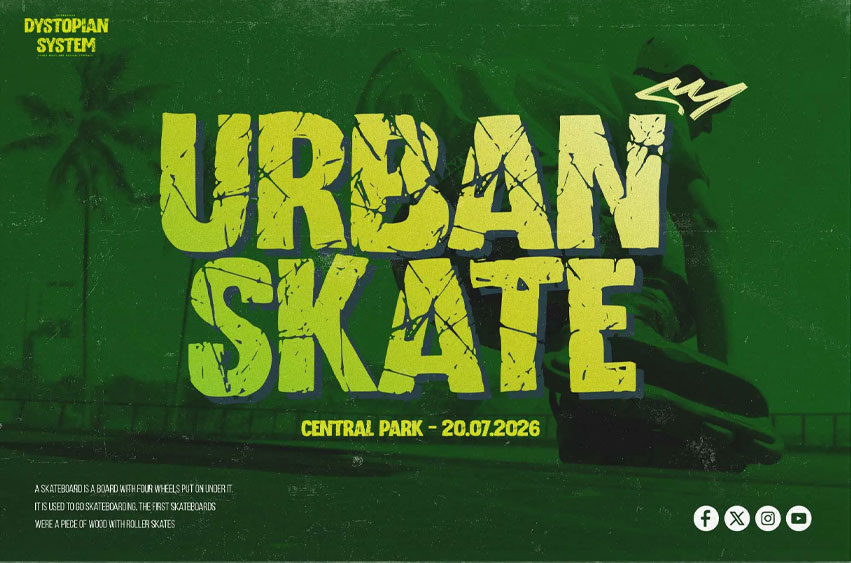
Dystopian System Font
Dystopian System Font is a Rough Rebel and Radical Typeface, this is a rebel font with rough font, this font is perfect for making a strong statement in your designs.
Add the bold and authentic character of this Font to your next project and capture the essence of the minimalist aesthetic.